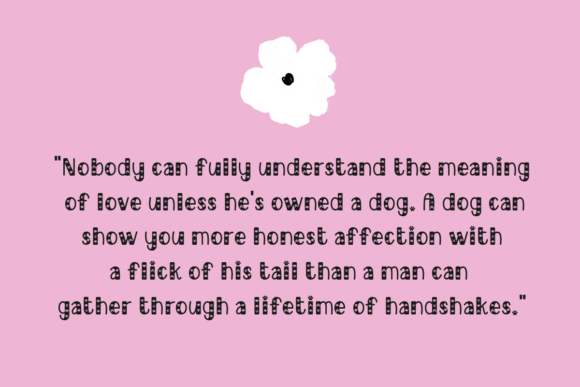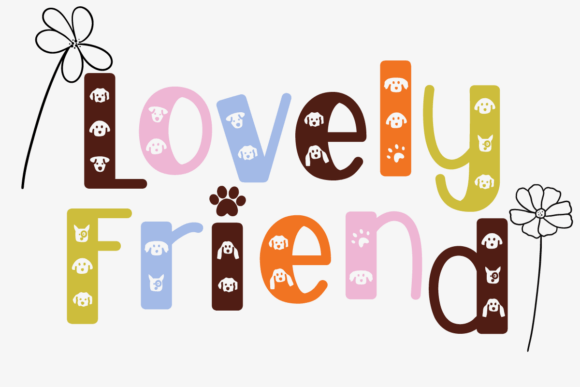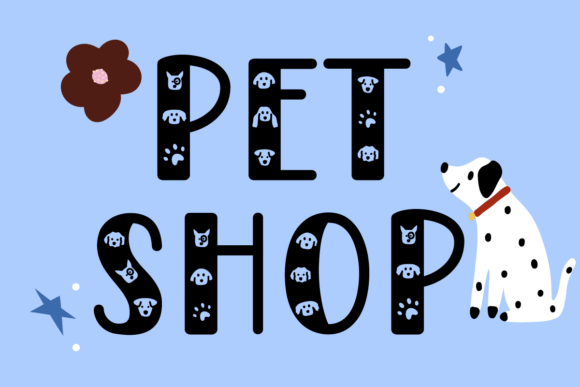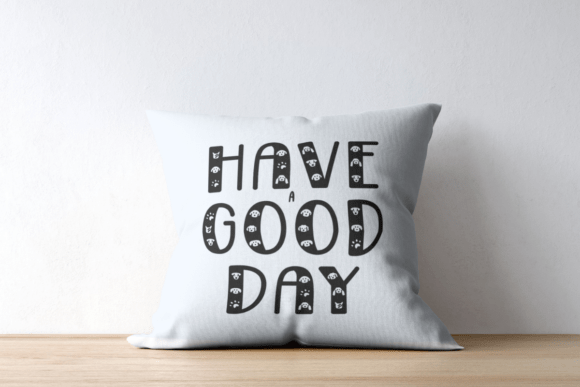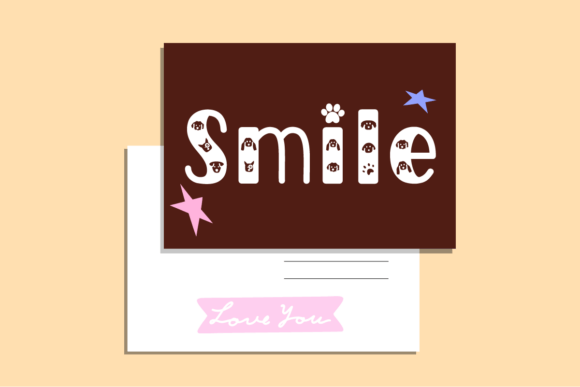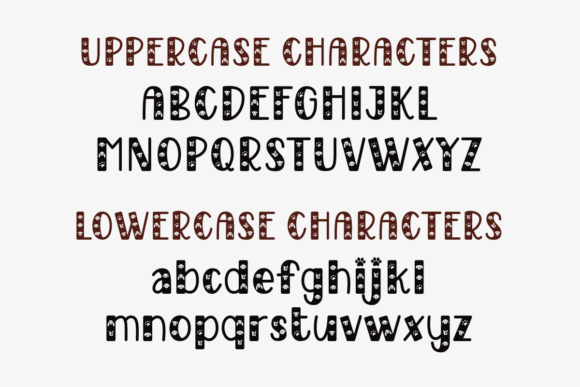
The Ultimate Guide to DOGS LOVER Font: A Cute Companion for Your Creative Projects
Have you ever been in the middle of a design project, and suddenly, you just can’t seem to find the right font? I recall a particularly frustrating experience while working on a pet-themed merchandise project. My client wanted a font that was not only cute but also conveyed a sense of playfulness and friendliness. After scouring the internet for hours, I stumbled upon the DOGS LOVER font, and it instantly became the perfect fit. In this article, we’ll dive into the world of DOGS LOVER, exploring its features, uses, and everything in between.
A Personal Review of DOGS LOVER Font
What I Love About DOGS LOVER Font
- ✨ Cute and Playful Design: The DOGS LOVER font is a decorative font that features adorable dog-inspired elements, making it perfect for pet and animal projects.
- ✅ Full Set of Alphabet: The font includes both uppercase and lowercase letters, ensuring you have everything you need to create stunning designs.
While DOGS LOVER font is an excellent choice for many projects, there are a few things to keep in mind:
- ⚠️ Limited Formality: Due to its playful nature, this font might not be the best choice for formal or professional projects.
- 🤔 Glyph Limitations: As with any font, there might be limitations to the number of glyphs or special characters available.
The Backstory Behind DOGS LOVER Font
The DOGS LOVER font was created with a passion for animals and a love for creative design. The designer, a self-proclaimed animal lover, aimed to create a font that would bring a smile to people’s faces and inspire creativity in the world of pet-themed design. With its adorable dog-inspired elements and playful design, DOGS LOVER font has become a popular choice among designers and crafters.